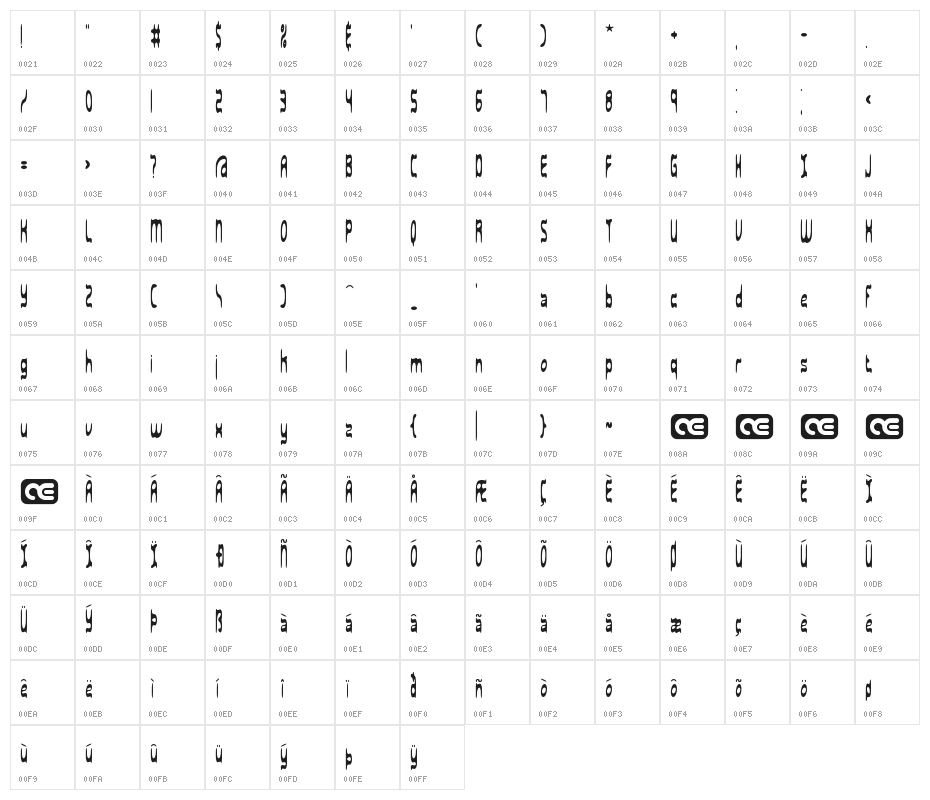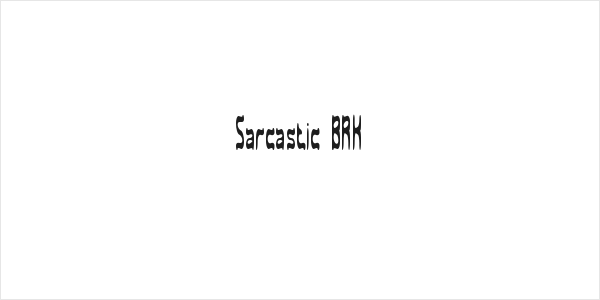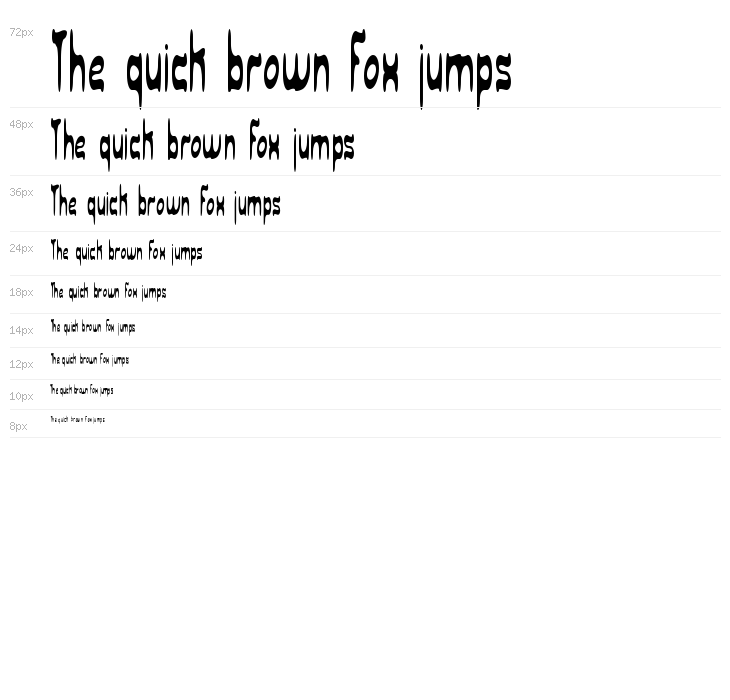
Sarcastic BRK Font
Sarcastic BRK Description
This font features a playful and quirky design, characterized by its irregular, wavy strokes and uneven letterforms. The letters appear to have a hand-drawn quality, with a whimsical and slightly distorted appearance that adds a sense of fun and creativity. The uppercase and lowercase letters maintain a consistent style, with rounded edges and a unique, almost cartoonish flair. Numbers and special characters follow the same playful aesthetic, making this font suitable for projects that require a lighthearted and informal touch.
Overall StyleWhimsical, Playful
Proposed ProjectsIdeal for children's books, comic strips, playful branding, and creative posters.